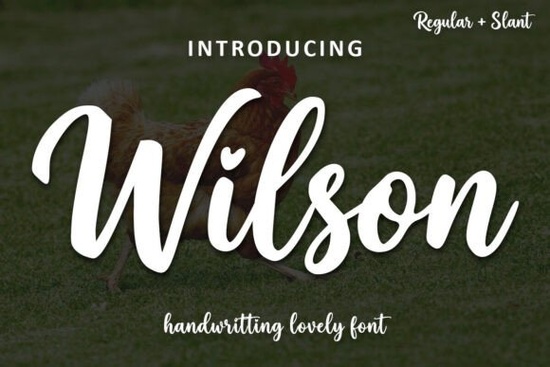
Wilson Font is a versatile and expressive handwritten typeface that brings a personal touch to any design project. Whether you're working on branding, social media graphics, or print materials, this font adds a unique flair that stands out. Its elegant yet casual style makes it perfect for a wide range of creative applications. If you're looking for something that feels both authentic and refined, Wilson Font could be the right choice for your next project.
Designed with a focus on warmth and character, Wilson Font captures the essence of handwritten style without sacrificing clarity. The subtle variations in each letter create a natural, human feel that can make your designs feel more approachable and heartfelt. This makes it especially useful for projects that aim to convey emotion or personality, such as wedding invitations, greeting cards, or promotional materials for small businesses.
One of the strengths of Wilson Font is its adaptability. It works well in both digital and print formats, making it a reliable option for various projects. Whether you're creating content for a blog, designing merchandise for a print-on-demand business, or working on a personal art project, this font can help bring your vision to life. Its readability at different sizes ensures that it remains effective across multiple platforms and mediums.
How to Use Wilson Font in Your Projects
Using Wilson Font is straightforward, but there are a few tips to keep in mind for the best results. Start by experimenting with different sizes and spacing to find what works best for your design. You may also want to pair it with a simpler sans-serif font to balance the visual weight and improve legibility. This approach is common in modern design and can help your message stand out more clearly.
When working with handwritten fonts, it's important to maintain a clean and organized layout. Avoid overcrowding text or using too many different fonts in one design. A minimalist approach often yields the most professional and polished results. For example, using Wilson Font for headings and a more neutral font for body text can create a clear hierarchy and improve readability.
Final Thoughts
Wilson Font is a great addition to any designer’s toolkit, especially for those who value authenticity and emotional expression in their work. Its stylish yet readable design makes it suitable for a variety of projects, from branding to creative hobbies. By choosing the right font for your needs, you can enhance the visual appeal and impact of your designs.
If you're looking to expand your font collection, consider exploring other script fonts that match your style. Experimenting with different typefaces can help you discover new ways to express your creativity. Remember, the goal is to find a font that not only looks good but also serves the purpose of your design effectively.
- Use Wilson Font for headings or short text to maintain readability.